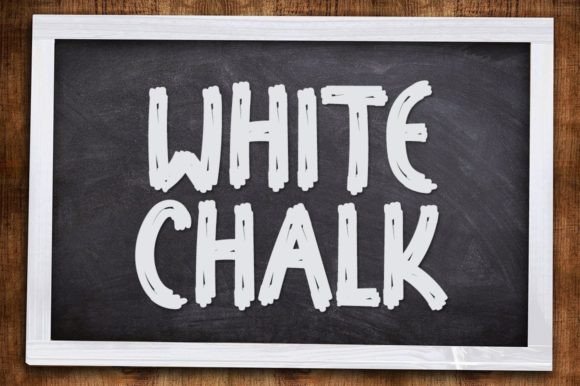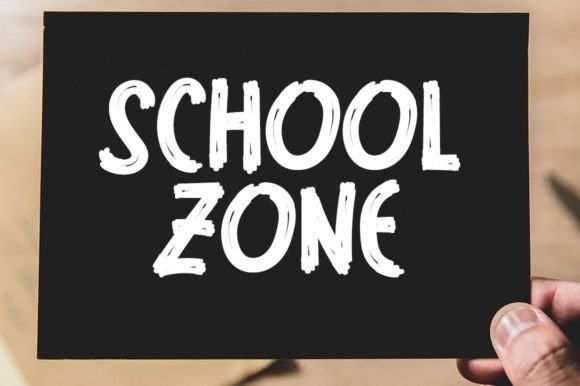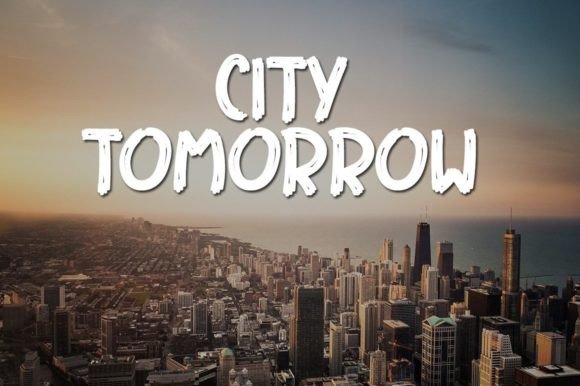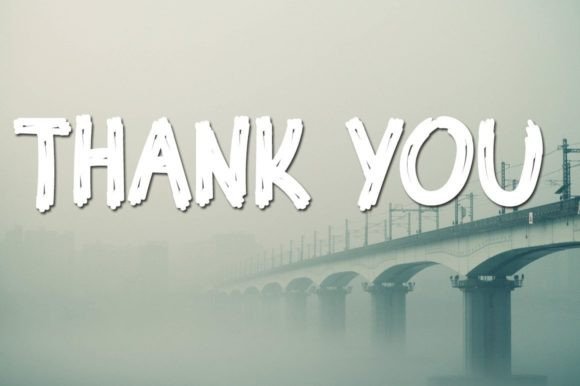
White Chalk Font
“White Chalk” is a beautiful and sweet font that brings a fresh, clean, and elegant touch to a variety of design projects. Its versatile nature makes it suitable for both formal and informal contexts, allowing you to use it in a wide range of creative endeavors.
This font is crafted to add an incredibly joyful and charming element to your designs. Its elegant and clean design makes it a great choice for projects that require a balance of sophistication and approachability. Whether you’re working on branding, invitations, posters, or any other design, “White Chalk” is designed to enhance the visual appeal of your content.
The simplicity and clarity of the font contribute to its versatility, making it easy to integrate into different design styles. If you’re aiming for a beautiful and joyful aesthetic, “White Chalk” can be a valuable asset to your design toolkit.
Consider using this font for various purposes, from business materials to personal projects, where an elegant yet friendly touch is desired. Let “White Chalk” elevate the visual presentation of your designs, adding a touch of beauty and sophistication to your creative work.